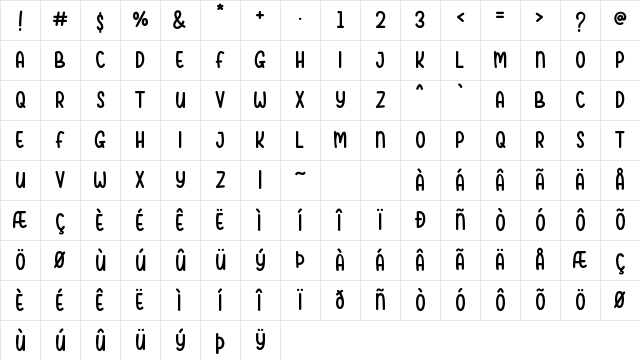
Youjelly Regular
Foundry: Collectype Studio
Designer: Septian Muhadi
Design Context for Youjelly
Youjelly is a composed and adaptable typeface that performs quietly and consistently across a wide range of design contexts.